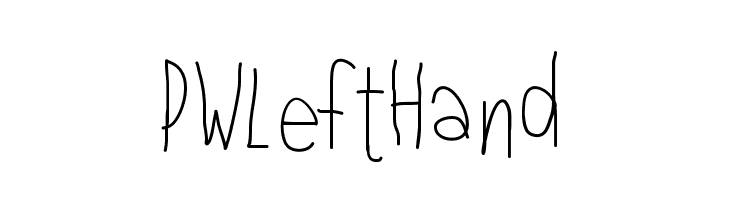
( Fonts by David Kerkhoff - www.hanodedphotography.com )
A playful, Art Deco-inspired font with tall, slender characters and a whimsical touch.
( Fonts by David Kerkhoff - www.hanodedphotography.com )
A lively and dynamic handwritten font with fluid strokes.
( Fonts by Hanoded )
A playful, hand-drawn font with bold, rounded characters and whimsical gnome illustrations.
( Hanoded - David Kerkhoff - www.hanodedfonts.com )
A whimsical, hand-drawn font with spiral embellishments and uneven strokes.
( Fonts by David Kerkhoff - www.hanodedphotography.com )
A playful, handwritten font with bold, rounded characters.
( Fonts by David Kerkhoff - www.hanodedphotography.com )
A bold, playful font with thick, blocky, and whimsical characters.
( Fonts by David Kerkhoff - www.hanodedphotography.com )
A playful, handwritten font with fluid, dynamic strokes and a casual feel.